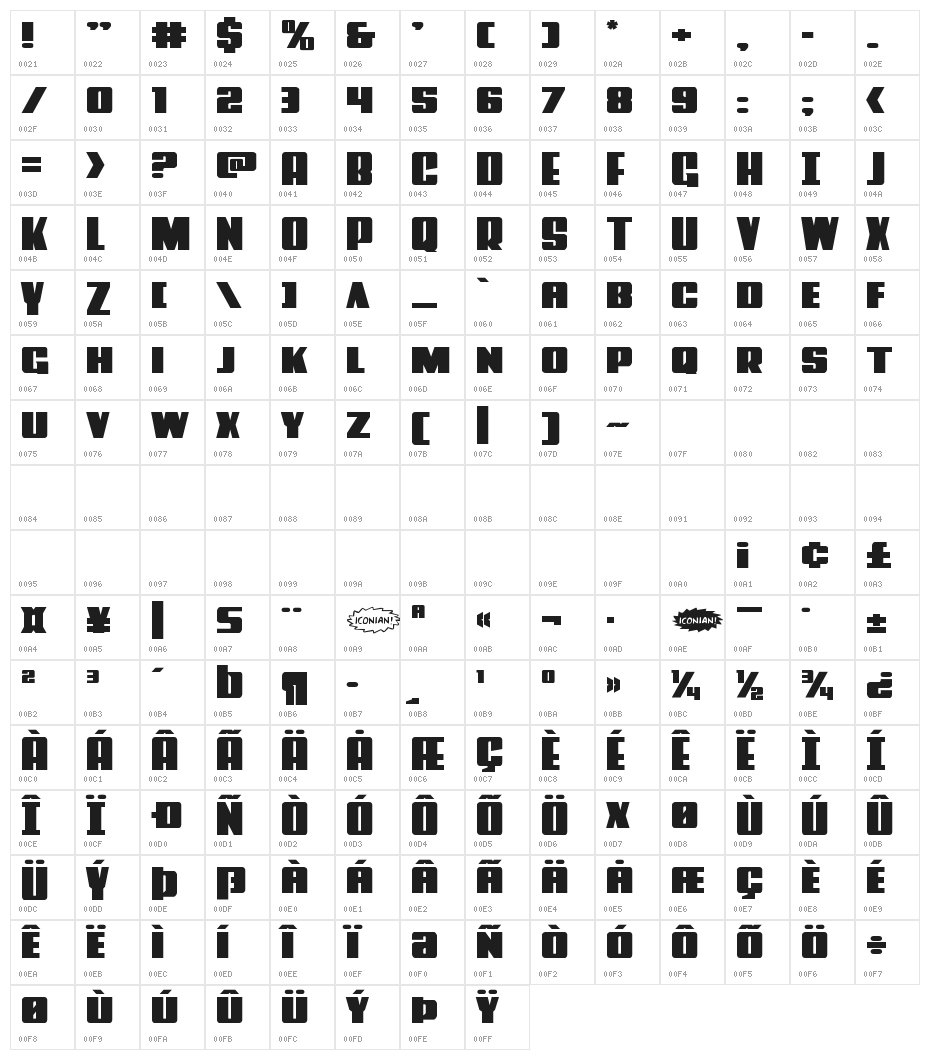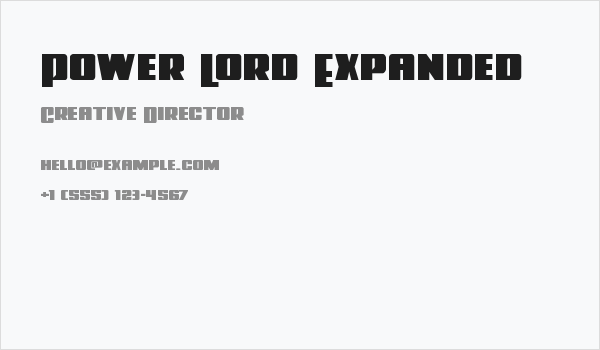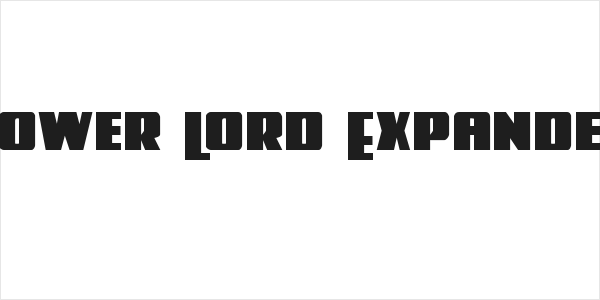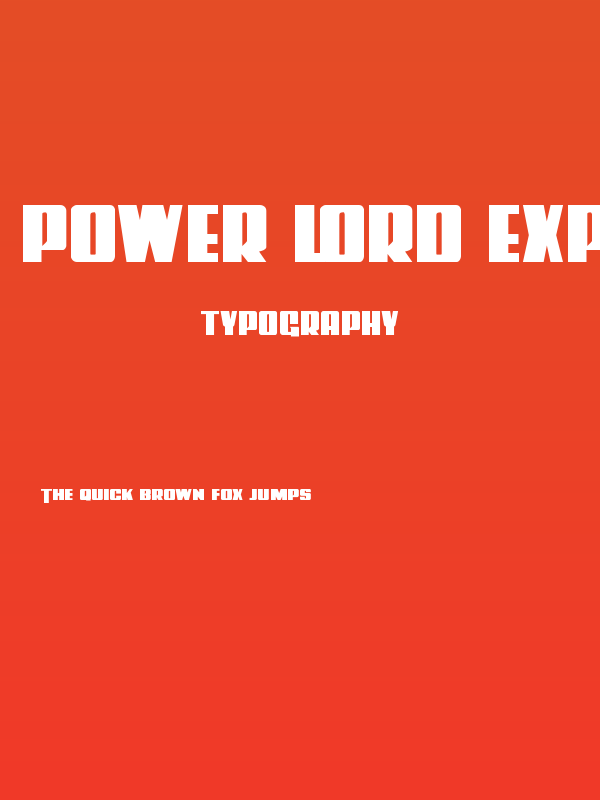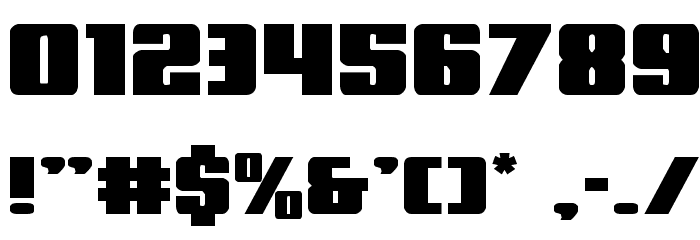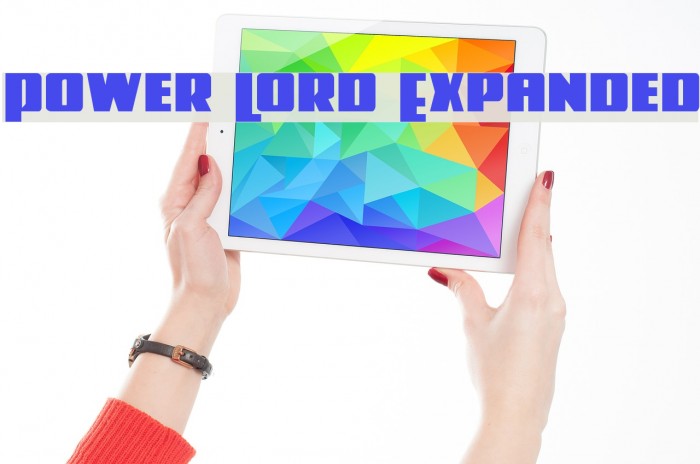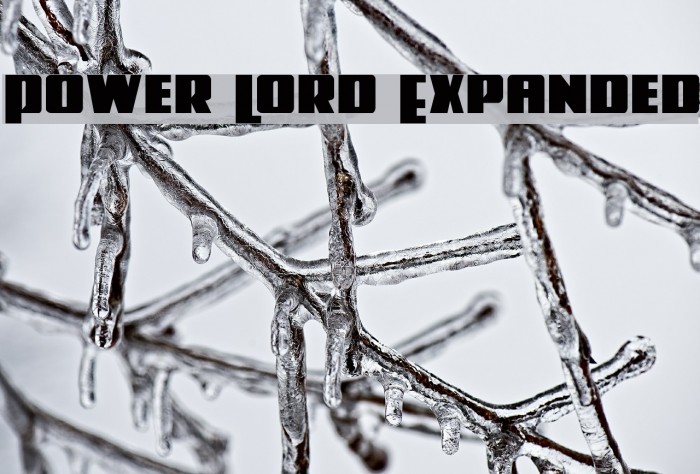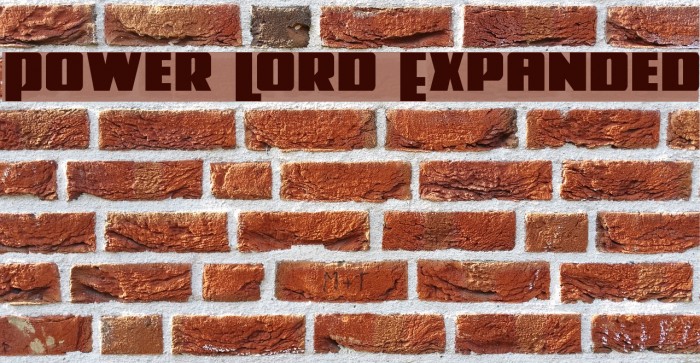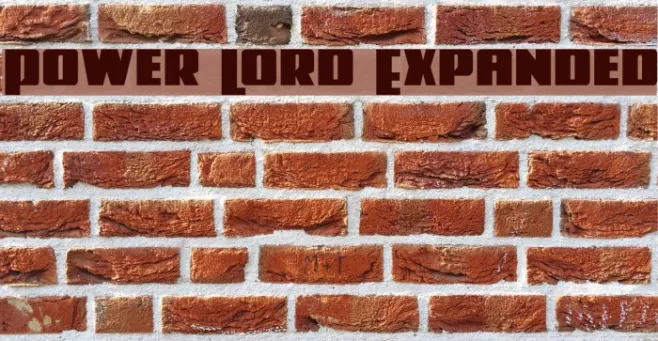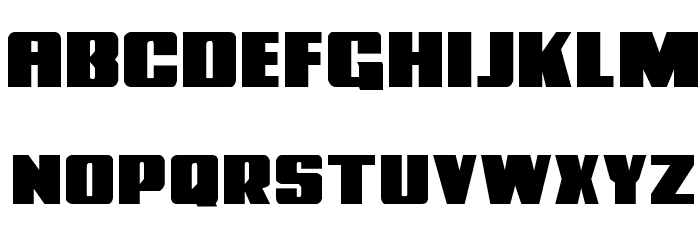
Power Lord Expanded Font
Power Lord Expanded Description
This font features a bold and powerful design with a strong presence, characterized by its thick, block-like letters. The uppercase and lowercase letters maintain a consistent width, giving it a uniform appearance. The numbers and special characters are designed to match the boldness of the alphabet, ensuring a cohesive look across all characters. The font's expanded width allows for a commanding and impactful visual statement, making it ideal for attention-grabbing headlines and titles. Its geometric shapes and sharp edges contribute to a modern and assertive style.
| Proposed Projects | This font is perfect for projects that require a strong visual impact, such as posters, banners, logos, and branding materials. Its boldness makes it suitable for sports-related designs, action-themed graphics, and any project that demands attention. |